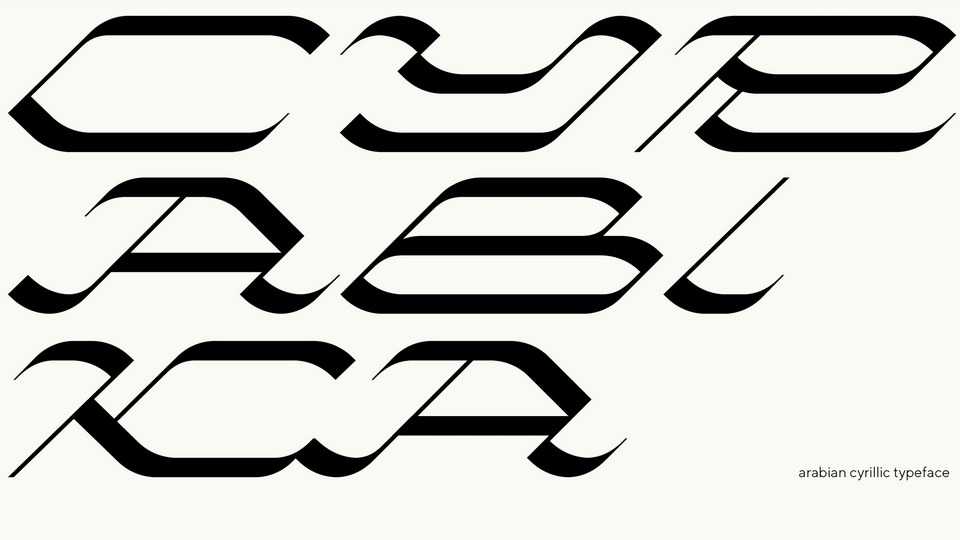
Download Cyrabika font, a reverse contrast display typeface inspired by traditional Arabic calligraphy. Cyrabika is a rethinking of the cultural background of Central Asia in a modern way.
Designer: Fionola Ovcharenko